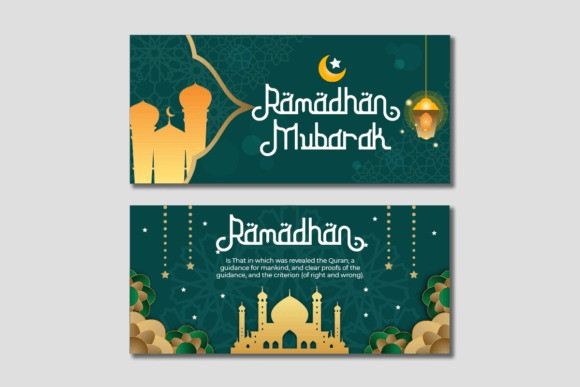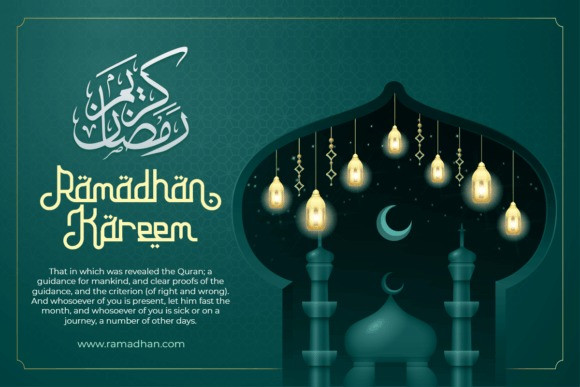
Ramadhan Kareem Display Font
Ramadhan Kareem Display Font is a beautifully crafted Arabic font designed to capture the spirit and elegance of the holy month of Ramadan. With its intricate calligraphic style and graceful letterforms, this font adds a touch of cultural richness and reverence to your designs. Ideal for creating greeting cards, invitations, banners, and religious publications, Ramadhan Kareem enhances your projects with a sophisticated and respectful representation of Arabic script. Celebrate the essence of Ramadan with this font that combines tradition with modern design.